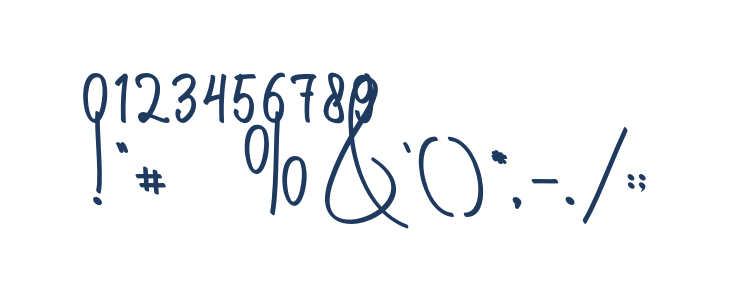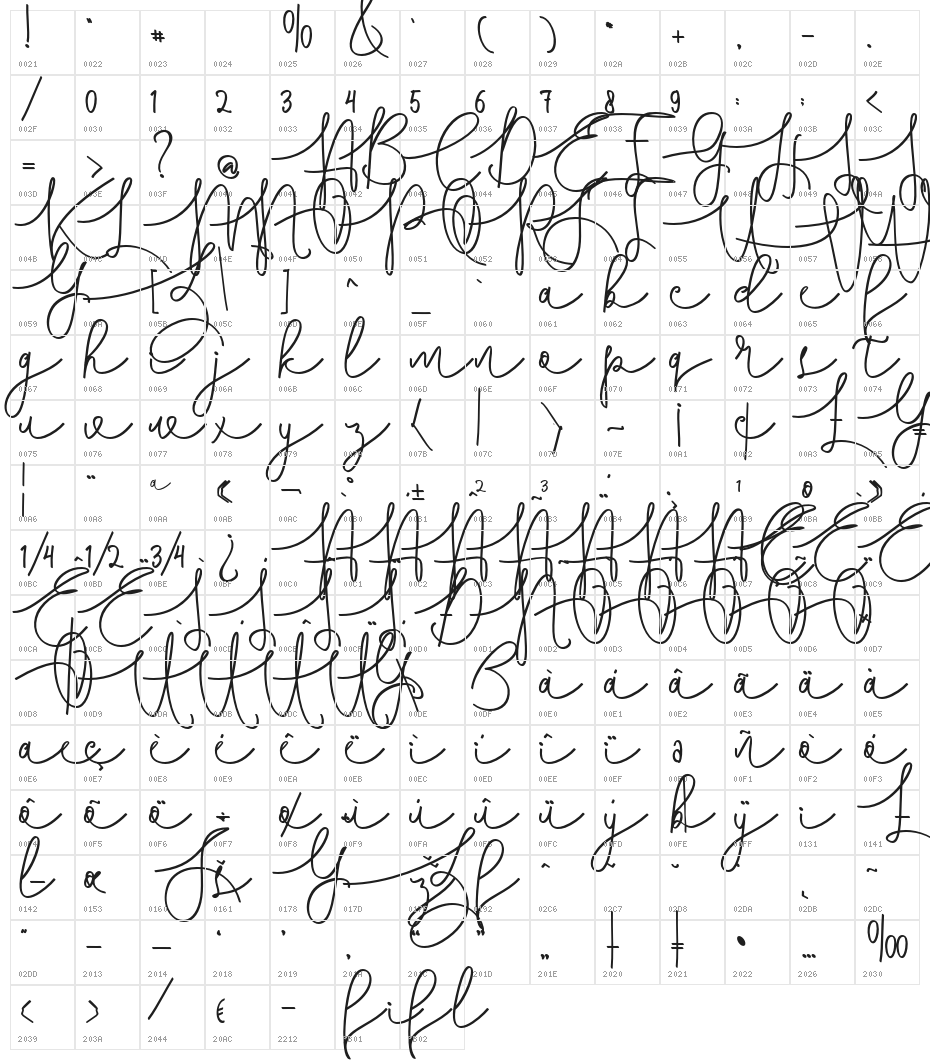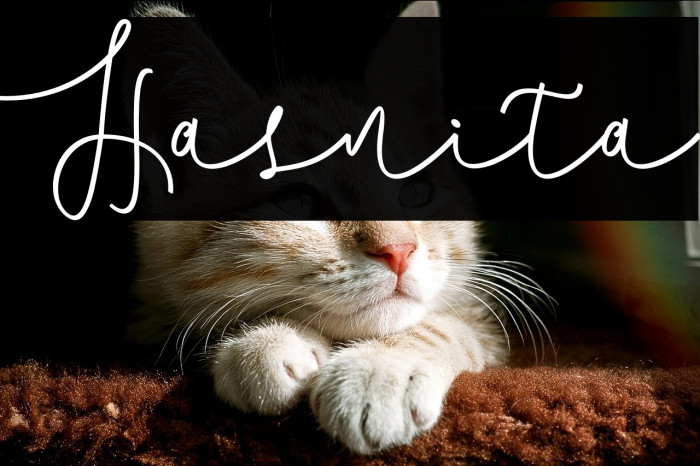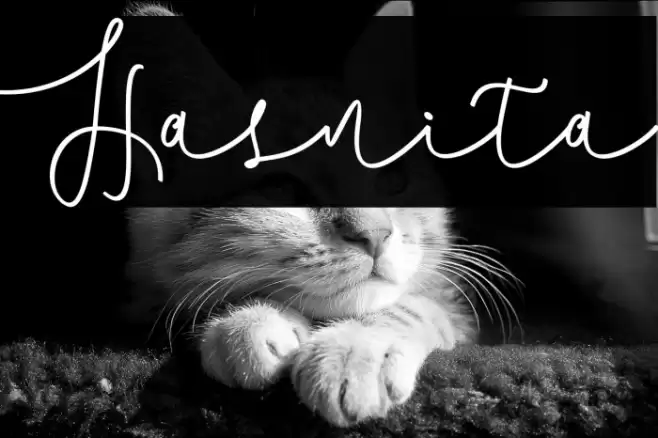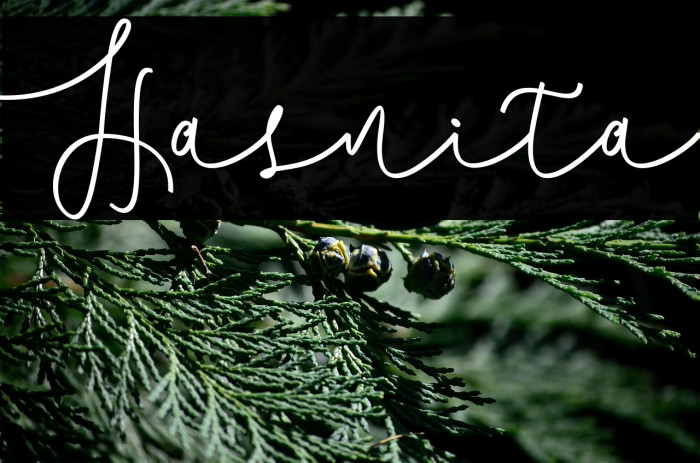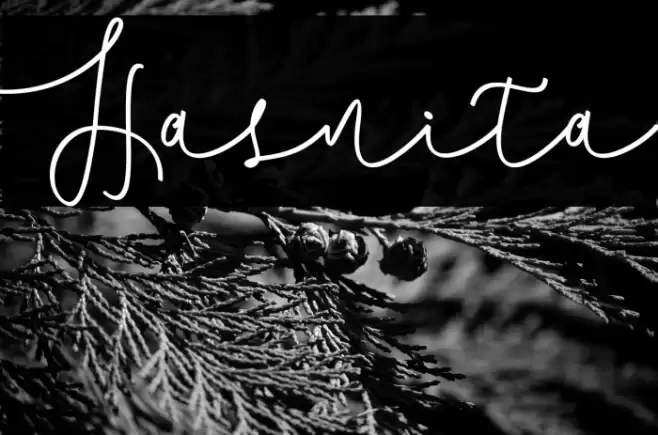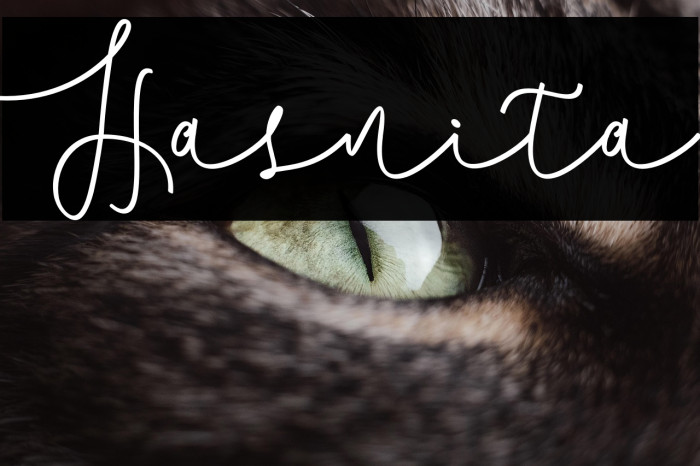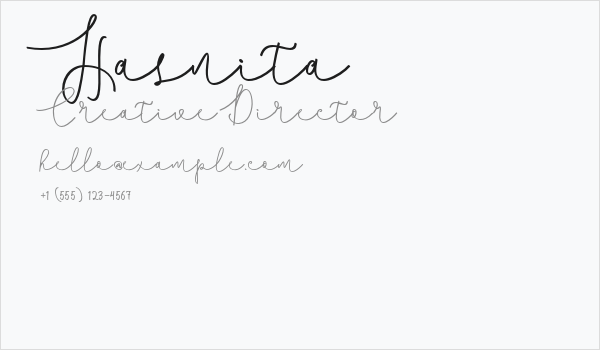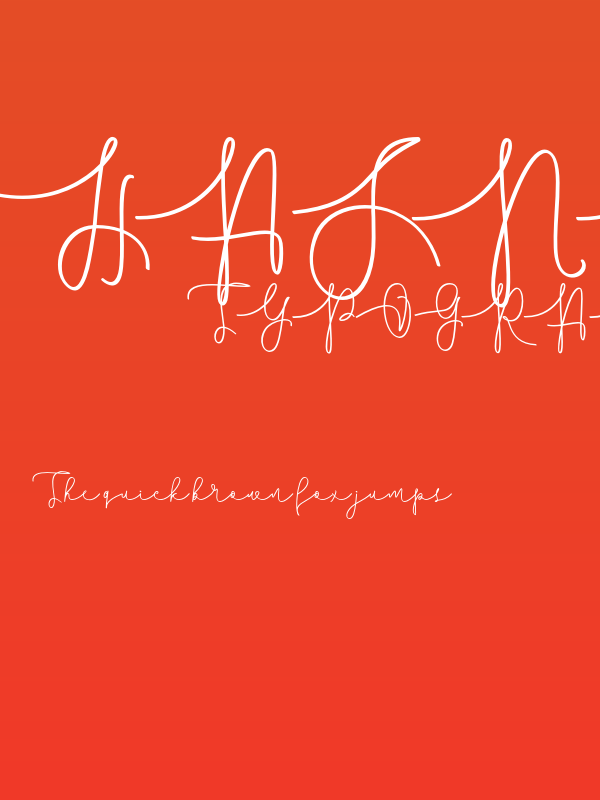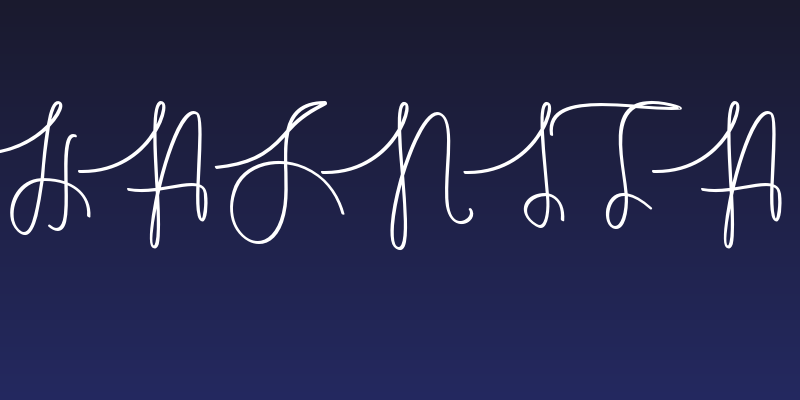
Hasnita Font
Hasnita Description
This font features a charming handwritten style with a fluid, cursive design. The uppercase letters are elegantly looped, creating a sense of continuity and flow. Lowercase characters maintain a consistent style, with smooth curves and a slightly playful appearance. The numerals are bold and clear, ensuring readability while maintaining the font's overall aesthetic. Special characters are creatively integrated, adding a whimsical touch. This font is perfect for projects that require a personal, artistic feel, such as invitations, greeting cards, or branding materials.